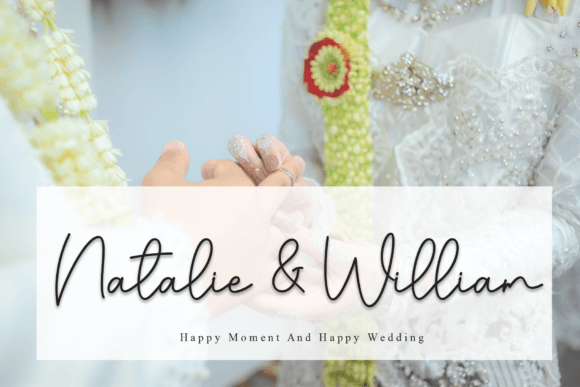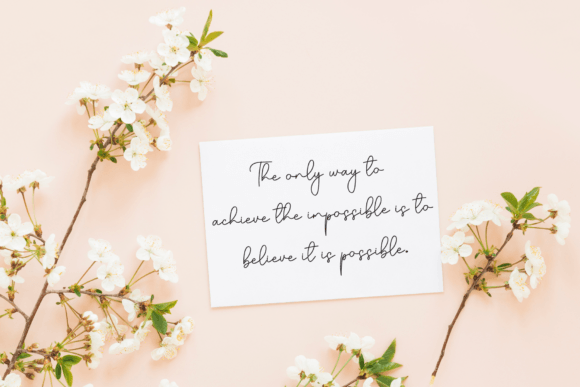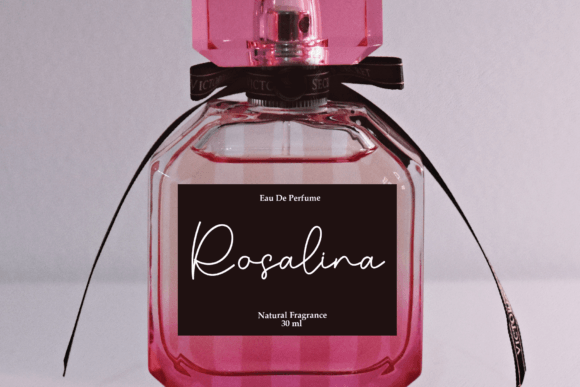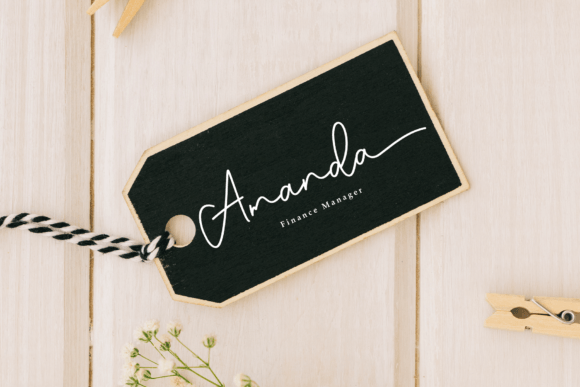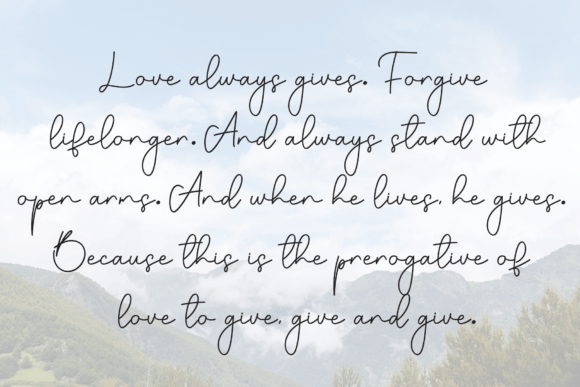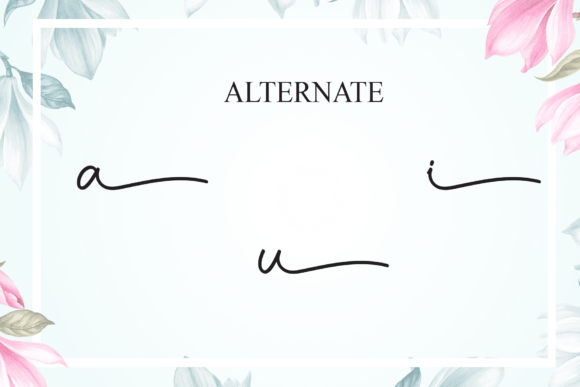
Introducing Adelya Font: Elevate Your Designs with Elegance and Sophistication
In the world of typography, few fonts manage to capture the essence of elegance and style as effectively as Adelya Font. This stunning script font is a game-changer for designers and crafters looking to add a touch of sophistication to their projects. Whether you’re working on wedding invitations, thank you cards, quotes, greeting cards, logos, or business cards, Adelya Font is the perfect choice to make your designs stand out.
The Beauty of Adelya Font
Adelya Font is a masterpiece of modern calligraphy, boasting intricate details and flowing lines that exude luxury and refinement. Its stylish and incredibly elegant appearance makes it an ideal fit for designs that require a handwritten touch. The font’s unique charm lies in its ability to convey emotion and personality, adding a humanizing element to any project.
One of the standout features of Adelya Font is its versatility. This font can be used across a wide range of design applications, from:
• Thank you cards and gift tags
• Quotes and social media graphics
• Greeting cards and postcards
• Logos and branding materials
• Business cards and letterheads
Wherever you need to add a touch of elegance and sophistication, Adelya Font is the perfect choice.
Why Choose Adelya Font?
So, what sets Adelya Font apart from other script fonts on the market? Here are just a few reasons why designers and crafters love working with Adelya:
• Unique and eye-catching design: Adelya Font features a distinctive and stylish design that will make your projects stand out from the crowd.
• Elegant and sophisticated: This font exudes luxury and refinement, making it perfect for high-end designs and special occasions.
• Easy to read and use: Despite its intricate details, Adelya Font is surprisingly easy to read and use, making it a joy to work with.
• High-quality and versatile: Adelya Font is a high-quality font that can be used across a wide range of design applications.
Tips for Using Adelya Font
To get the most out of Adelya Font, here are a few tips to keep in mind:
• Use it sparingly: Adelya Font is a statement font, so use it sparingly to add emphasis and elegance to your designs.
• Pair it with complementary fonts: Combine Adelya Font with complementary fonts to create a visually appealing contrast.
• Experiment with colors and textures: Don’t be afraid to experiment with different colors and textures to add depth and interest to your designs.
In conclusion, Adelya Font is a stunning script font that is sure to elevate your designs to new heights. With its elegant and sophisticated design, versatility, and ease of use, it’s the perfect choice for designers and crafters looking to add a touch of luxury and refinement to their projects. Whether you’re working on wedding invitations, logos, or social media graphics, Adelya Font is a must-have font in your design arsenal.